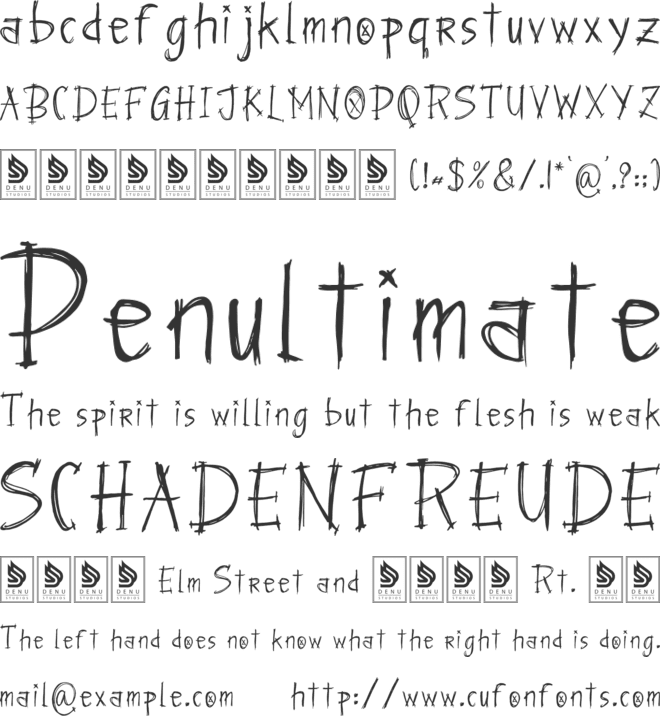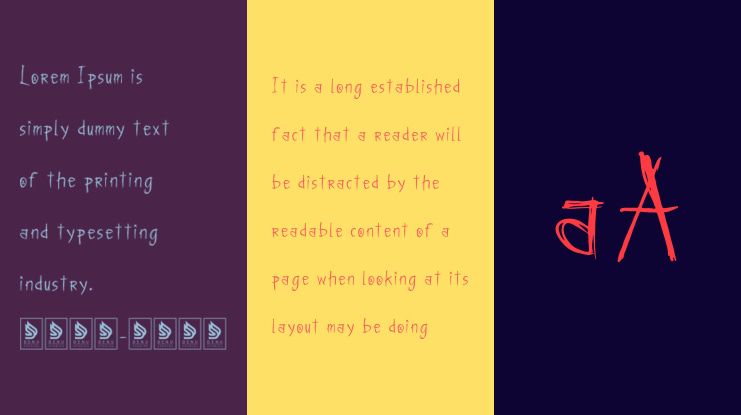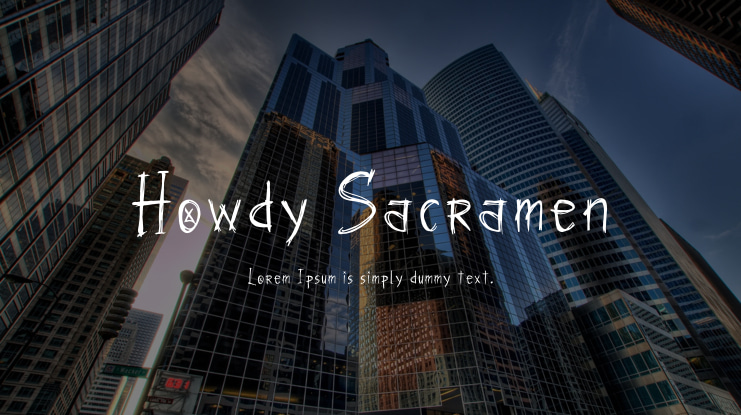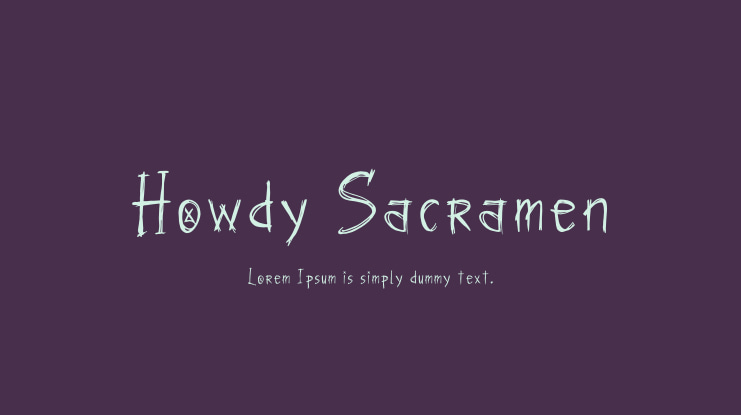
**Howdy Sacramen | Horror Handwritten Font Duo**
Howdy Sacramen is a versatile horror handwritten font duo that is perfect for various projects, including:
- Logos - Branding projects - Homeware designs - Product packaging - Mugs - Quotes - Posters - Shopping bags - T-shirts - Book covers - Name cards - Invitation cards - Greeting cards - Labels - Photography - Watermarks - Special events
…and any other lovely projects where you desire a horror handwritten font duo flair.